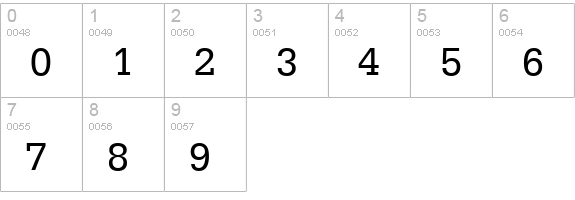
EgyptienneStd-Regular is the standard, neutral variant in the EgyptienneStd typeface family \xE2\x80\x94 well suited to general body text, paragraphs, and standard typographic work.
EgyptienneStd-Regular is a classic and versatile font that combines the elegance of a serif typeface with the modernity of a sans-serif font. Its clean lines and timeless design make it a perfect choice for a wide range of projects, from branding to editorial design. This font is freely available to download at FontsMarket.com, allowing designers and typographers to easily access this high-quality typeface for their creative endeavors. With its balanced proportions and legible letterforms, EgyptienneStd-Regular is ideal for both print and digital applications, making it a valuable addition to any designer's toolkit. Whether you're working on a logo, website, or publication, EgyptienneStd-Regular offers a professional and polished look that is sure to elevate your design projects. Download this versatile font today and bring a touch of classic sophistication to your next creative endeavor.